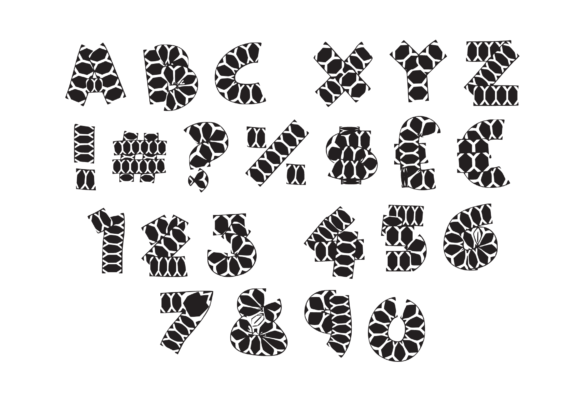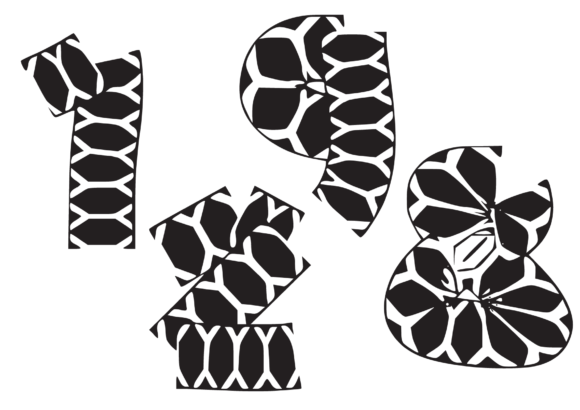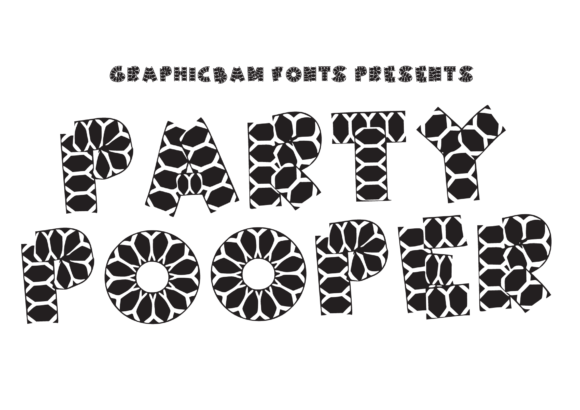
HomePersonal Use FreeParty Pooper Personal Use Free Party Pooper FacebookXPinterestWhatsApp 1 of 3 About Party Pooper Font Party Pooper is a cool, quirky and unique display font. It appears as though its characters were created out of little geometrical shapes. Add this cool looking font to your designs, and they will instantly stand out. DOWNLOAD ON CREATIVE FABRICAThis font is sold and delivered by Creative Fabrica. Font Canyon may earn a commission if you buy through this link. People also explored Lodaya Font Shine Flows Font Night Light Font Ricttoria Font Biscuits Font BD Beans Higthesta Monthana Font Blaster Easter Font 652 0 TagsParty Pooper Font Previous articleShellyNext articleConcrete Wall LEAVE A REPLY Cancel reply Comment: Please enter your comment! Name:* Please enter your name here Email:* You have entered an incorrect email address! Please enter your email address here Website: Save my name, email, and website in this browser for the next time I comment. Personal Use Free Metal Lord Personal Use Free Read more about this font Vuldo Personal Use Free Read more about this font Engine Personal Use Free Read more about this font Calega Personal Use Free Read more about this font BLOG 5 Fonts That Will Dominate Design Trends in 2026 5 Fonts for 2026 That Will Dominate Design Trends Typography plays a critical role in visual communication, and as we look ahead to 2026, it’s... The 10 Best Handwriting Fonts to Add Personality to Your Designs Modern Sans-Serif Fonts That Brands Love in 2025 Free Fonts Risk: Why Free Fonts Can Be Dangerous for Designers